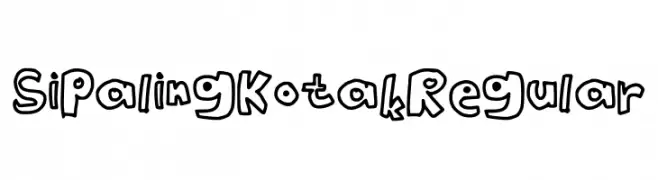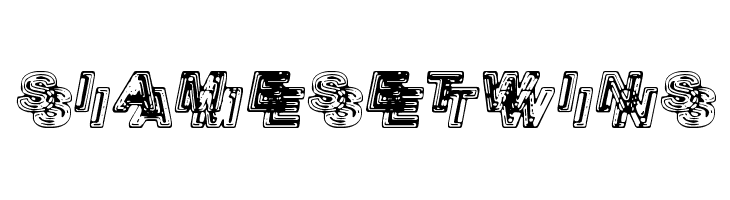
A playful, hand-drawn font with bold outlines and a whimsical style.
A bold, playful font with thick, rounded strokes and a hand-drawn feel.
A bold, dynamic script font with fluid, connected characters and elegant curves.
A bold, geometric font with a modern and assertive style.
A bold, layered font with intertwined letterforms and a three-dimensional effect.
A bold, dynamic script font with elegant loops and swirls.
A dynamic, brush-style font with bold, fluid strokes and a hand-drawn appearance.